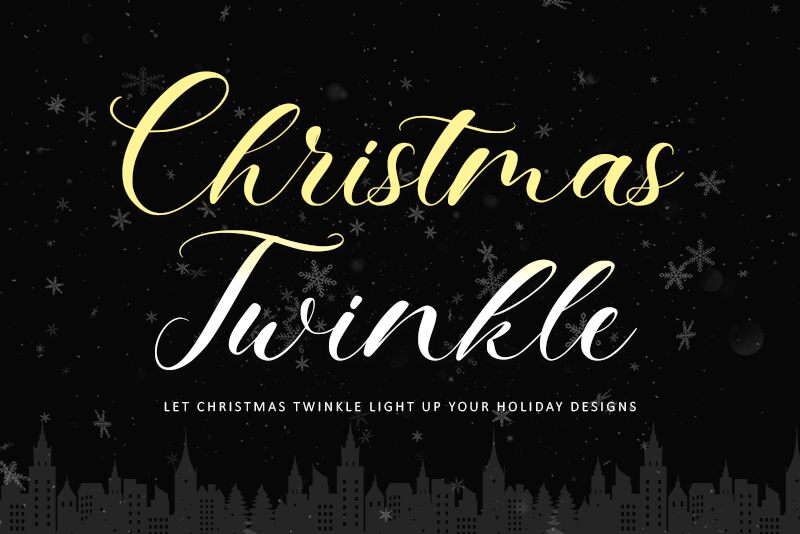
Christmas Twinkle font makes each design appear more elegant and sophisticated. This free calligraphic font by Letterara features a whimsical style and decorative flourishes, presenting an artistic flair that can help with close-up designs and decorations. Christmas, the best time of the year, is now celebrated with this modern design.
Tie your designs to the holiday season with Christmas Twinkle and let your typography appear festive. So if you’d like to create Christmas cards, designs for a kids’ party, or even decorate holiday-themed wrapping paper, you can feature this font in your projects.
Create dashing lettering for your menus or invite your guests with some class with its distinctive characters. Or you can start early and use this one-of-a-kind free font for your next Christmas film festival flyer. Note that this font is free for personal use. A commercial license is available.